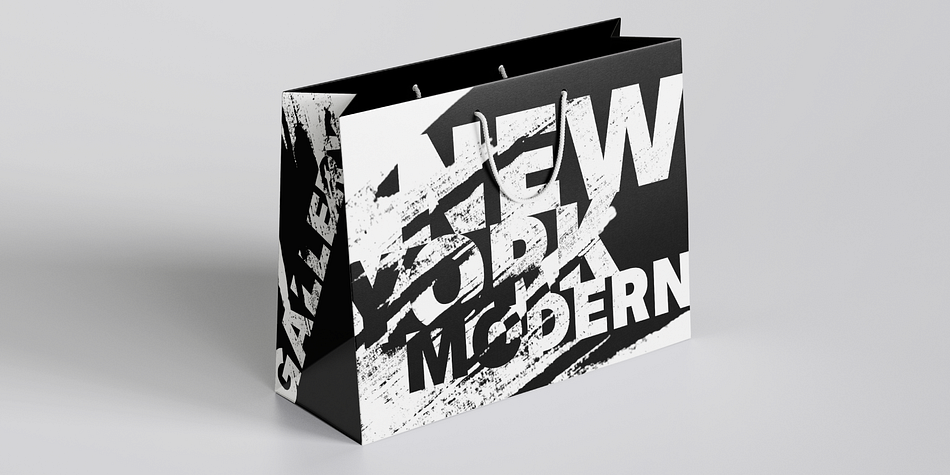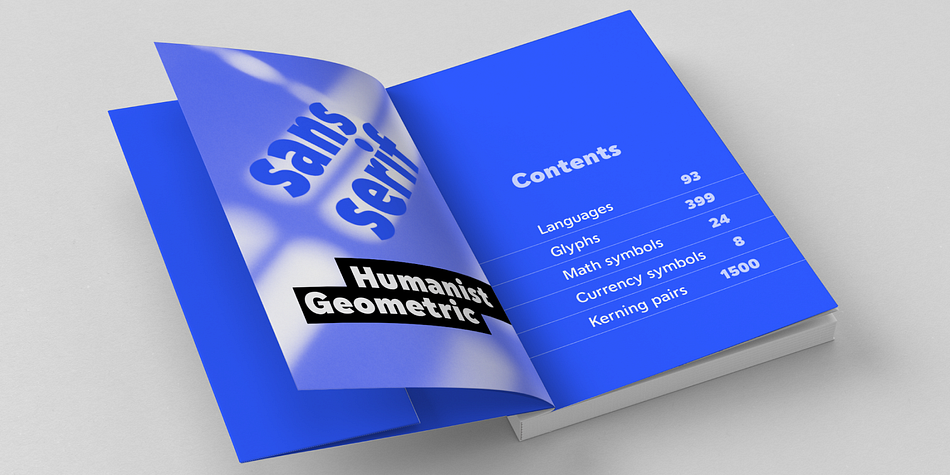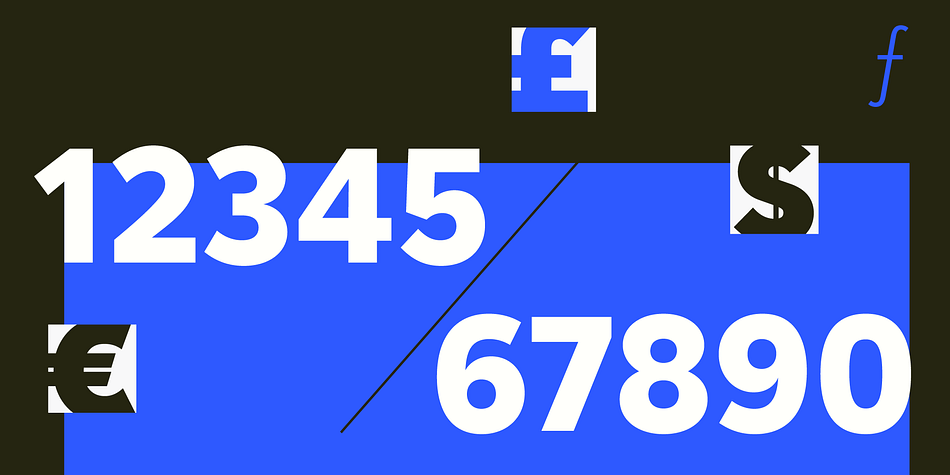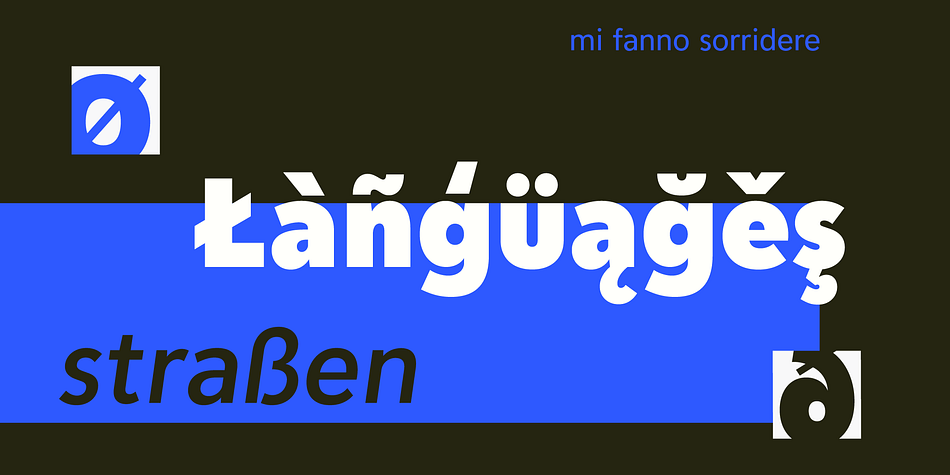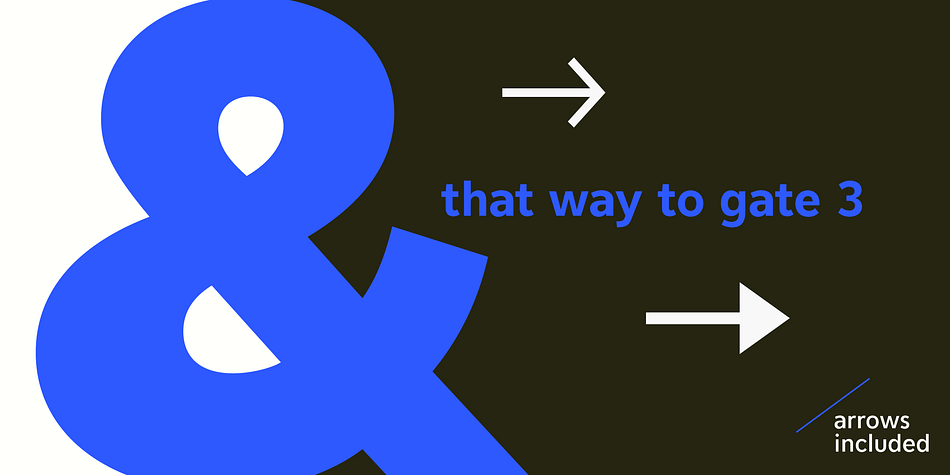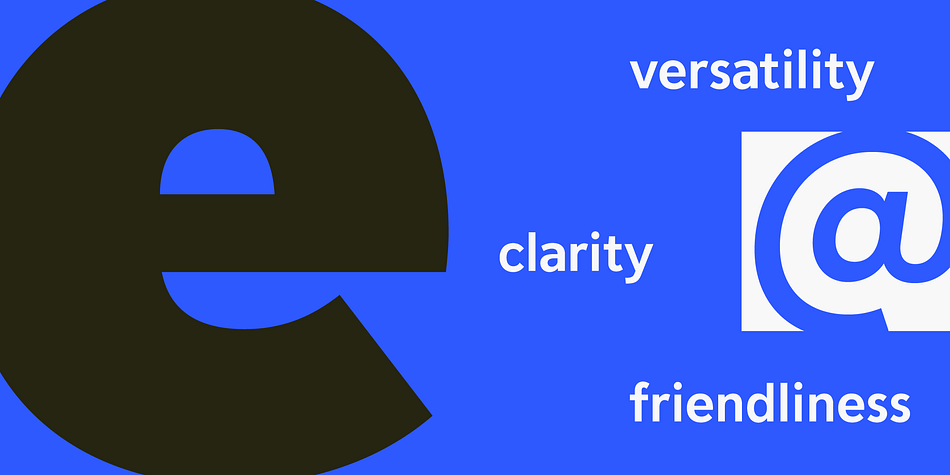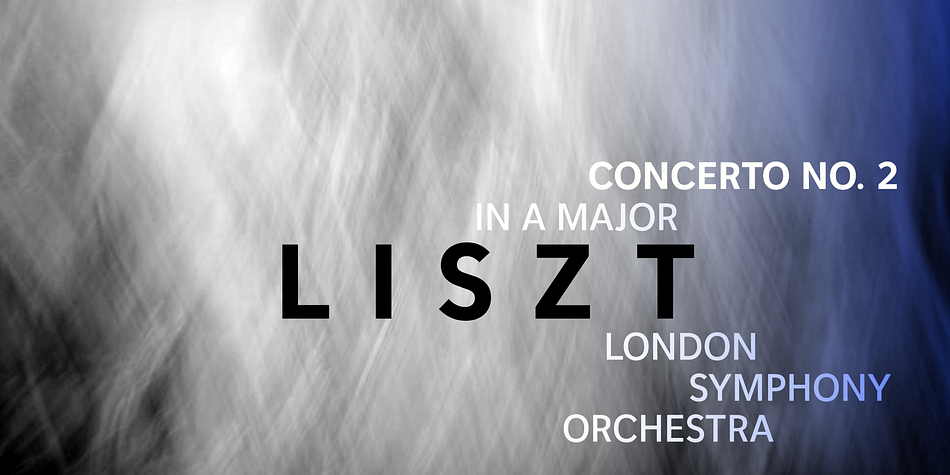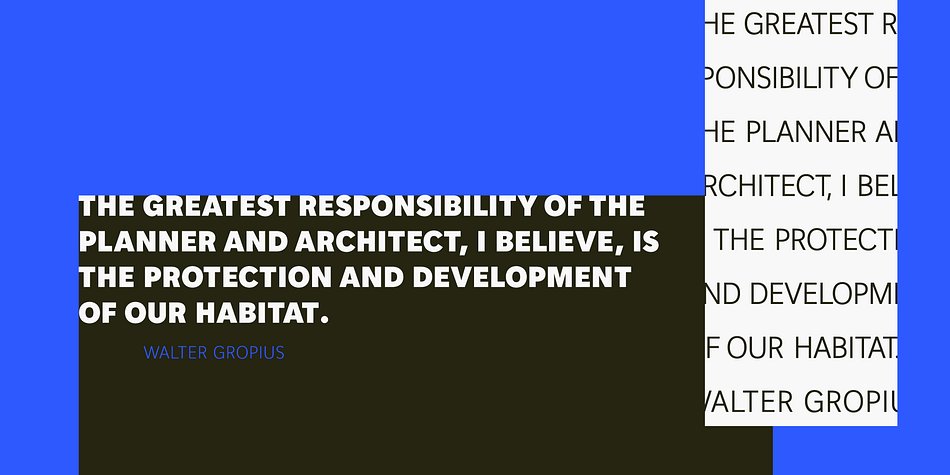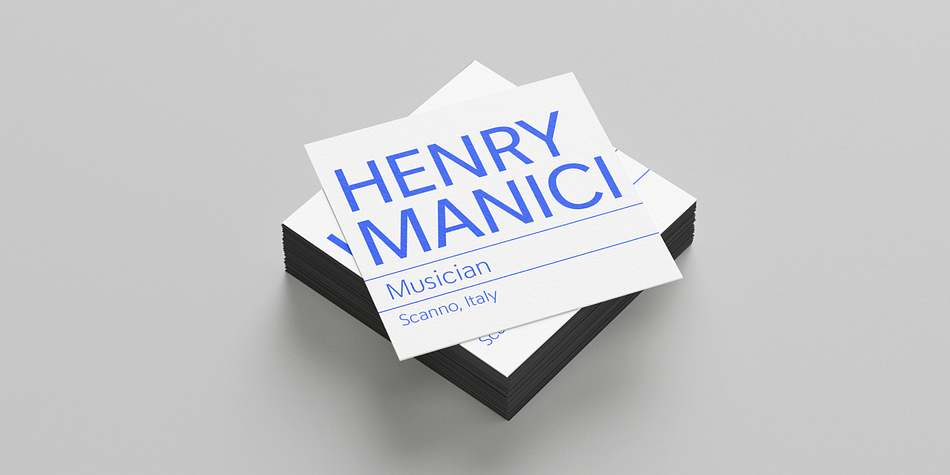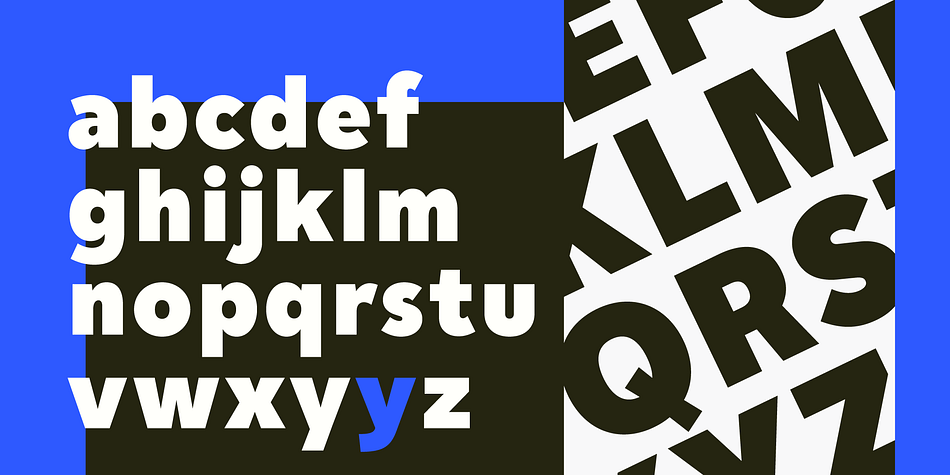
Designed by Donald Tarallo, Scanno is a sans serif font family. This typeface has eighteen styles and was published by Tarallo Design.
Scanno is a modern sans serif typeface that comes in eight weights and one condensed. Each weight has an oblique. It is a versatile family that is suitable for body, headline, and display text on screen or in print.
Its open forms set a welcoming and friendly tone that renders well in all media. Scanno is warm and modern with a nostalgic hint of early sans serifs. It encapsulates both humanist and geometric qualities, while maintaining a sense of timelessness and neutrality, thus opening itself to a wide range of uses.